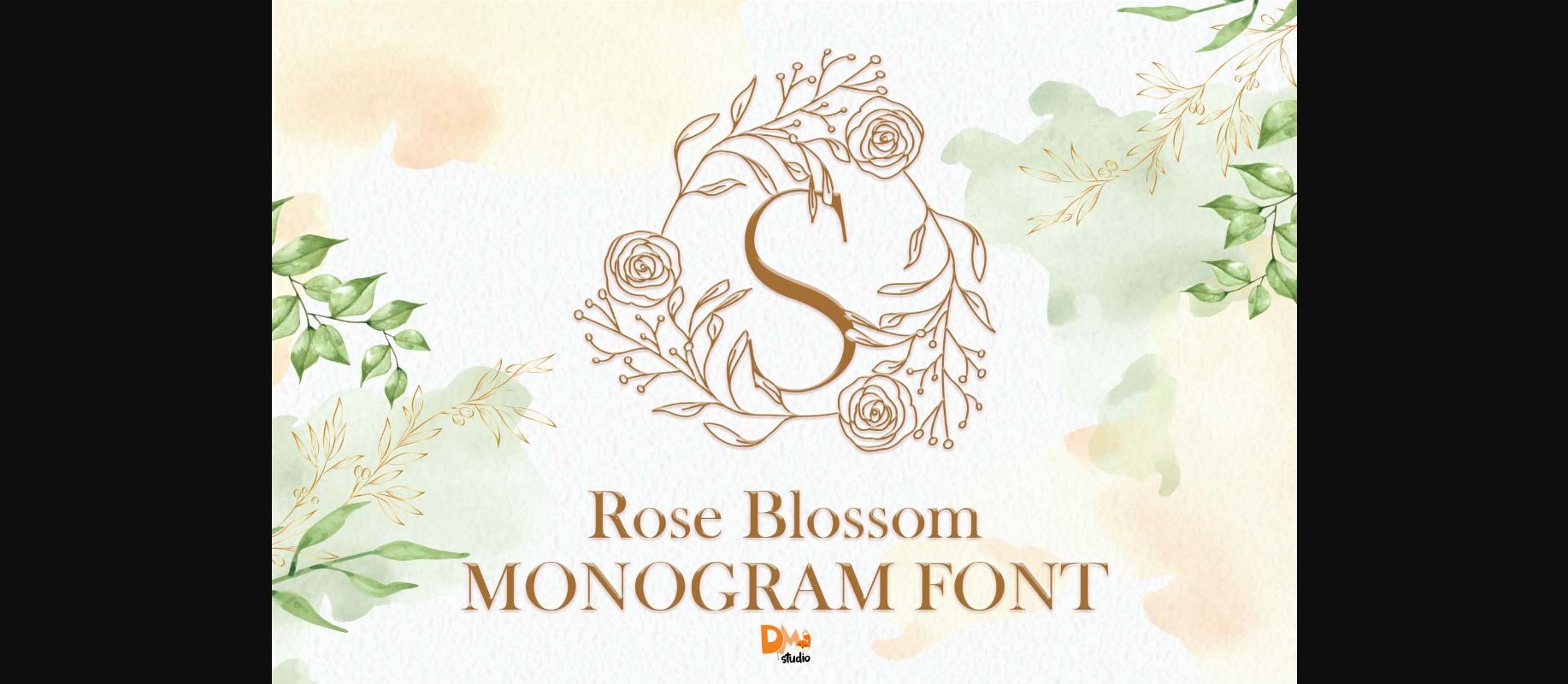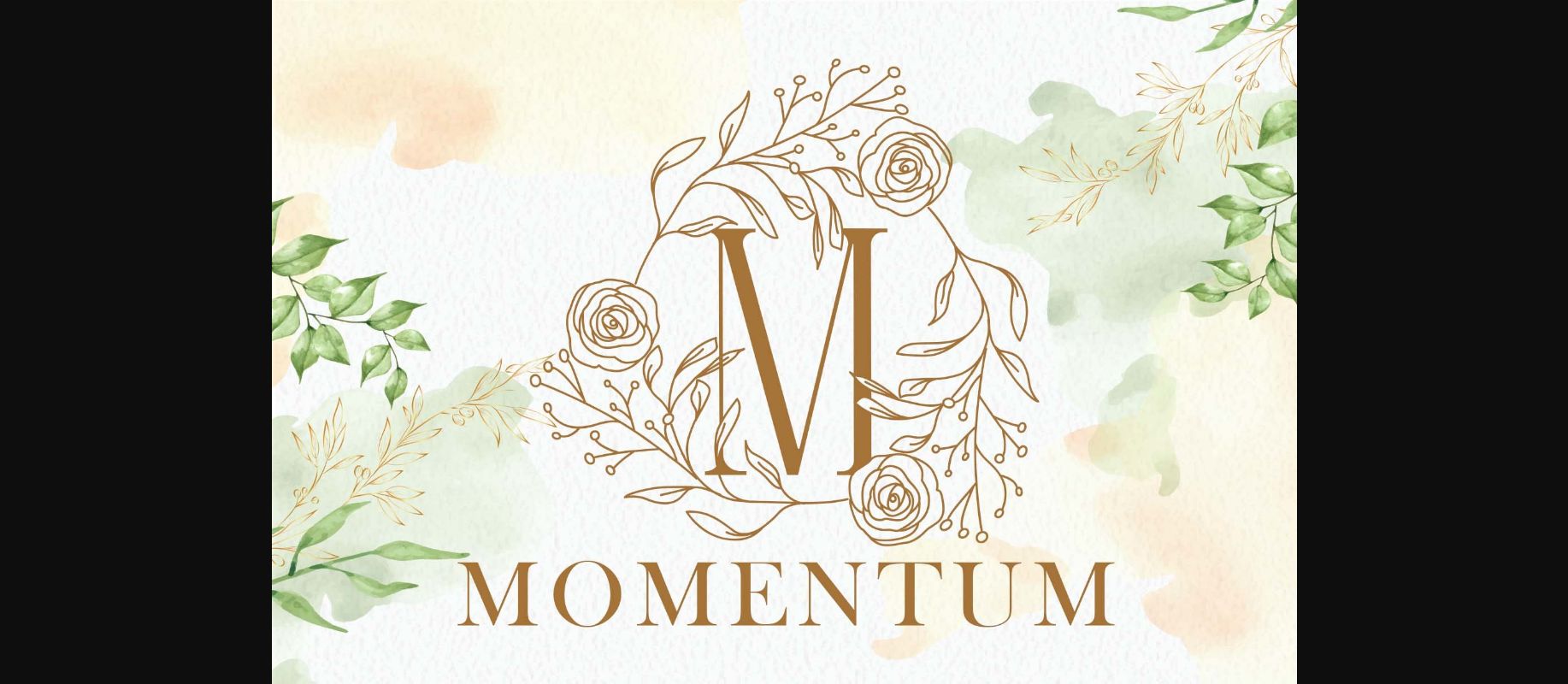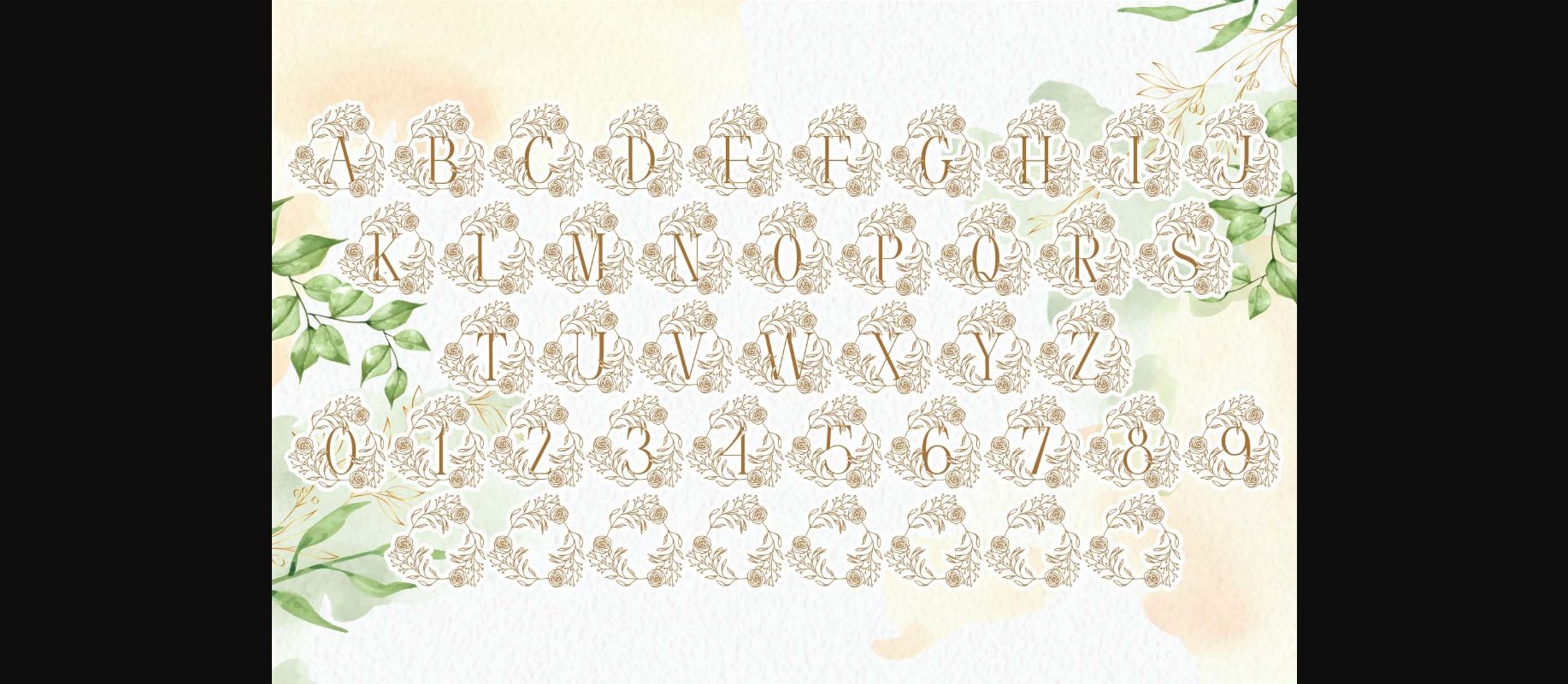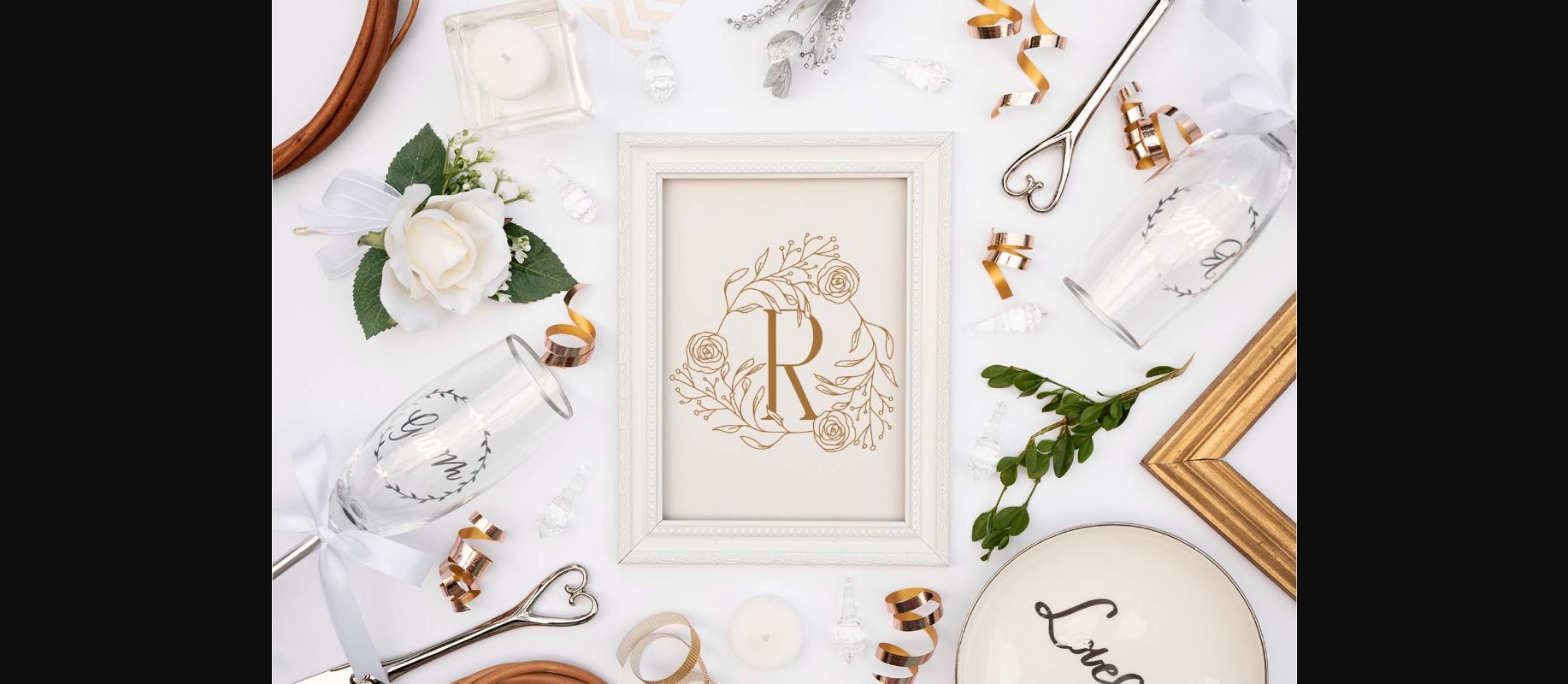
Rose Blossom Monogram Font
About Rose Blossom Monogram Font
Rose Blossom Monogram is a lovely, elegant and unique decorative font. Add this romantic looking font to each of your love letters, wedding invitations or favorite design ideas, and you will be astounded by the outcome.